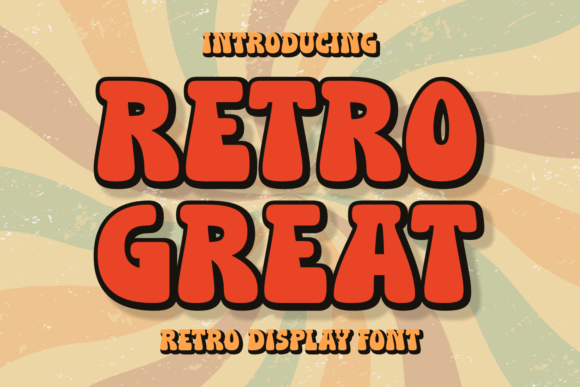
Journey back in time with Retro Great, the display font that captures the essence of vintage charm. Its playful, chubby characters dance across your screen, evoking a sense of nostalgia and whimsy. This font is a treasure trove of creative possibilities, waiting to be unleashed upon your next design project.
With Retro Great, you'll have the power to transform ordinary designs into captivating masterpieces. Its thick, bold strokes exude a sense of strength and stability, while its rounded edges lend a touch of softness and approachability. Each character is meticulously crafted to evoke the feeling of a bygone era, adding a layer of depth and intrigue to your designs.
Picture this: a poster for a vintage fair, adorned with Retro Great's distinctive lettering. The words "Step Back in Time" leap off the page, inviting passersby to embark on a nostalgic adventure. Or envision a retro-themed café menu, where Retro Great's playful charm entices customers to indulge in delectable treats. The possibilities are endless, limited only by your imagination.
More than just a font, Retro Great is a gateway to a world of creativity and self-expression. It's perfect for logos, branding, packaging, posters, and any project where you want to inject a touch of vintage flair. Its versatility knows no bounds, making it an indispensable tool for designers of all levels.
Elevate your designs with Retro Great, the display font that breathes new life into vintage aesthetics. Its timeless appeal and endless possibilities make it a must-have for any creative toolbox. Download Retro Great today and unlock a world of design magic!